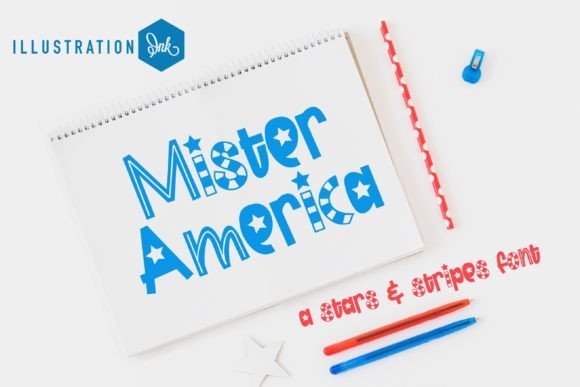
Stir Patriotism and Ignite Creativity with Mr. America Font - A Celebration of National Pride!
Journey through American history, heritage, and pride with Mr. America font, a display font exuding unwavering patriotism. This font is the perfect tool for designers, crafters, and enthusiasts seeking to infuse their designs with a touch of nationalistic fervor. Whether you're creating posters, quotes, book covers, party invitations, or embarking on any creative project, Mr. America is your font of choice.
With its bold, confident strokes and unmistakable American flair, Mr. America delivers a message of pride and unity. Its charming aesthetics, reminiscent of iconic Americana, captures the essence of liberty, independence, and the enduring spirit of the United States. Unleash your inner patriot and design captivating works that resonate with national pride and evoke a sense of belonging.
Dive into the versatility of Mr. America font and witness its transformative power across various design applications. Create posters that celebrate national holidays, craft invitations to patriotic gatherings, and design book covers that resonate with historical significance. Let your imagination soar as you weave words of wisdom into visually stunning quotes, ensuring your message leaves an everlasting impression.
More than just a font, Mr. America is a symbol of unity, a reflection of our shared heritage, and a celebration of the American spirit. It's the perfect choice for designers seeking to create impactful visuals that capture the essence of the nation, whether for commercial or personal projects. Embrace the power of Mr. America font and let your creativity shine brightly, igniting a spark of patriotism in every design.